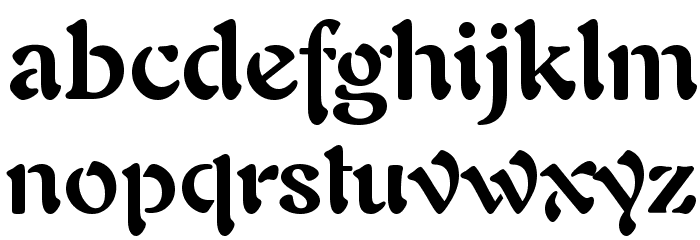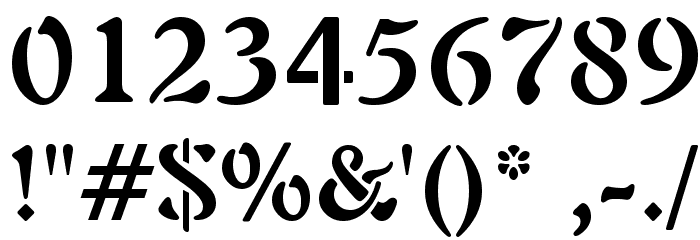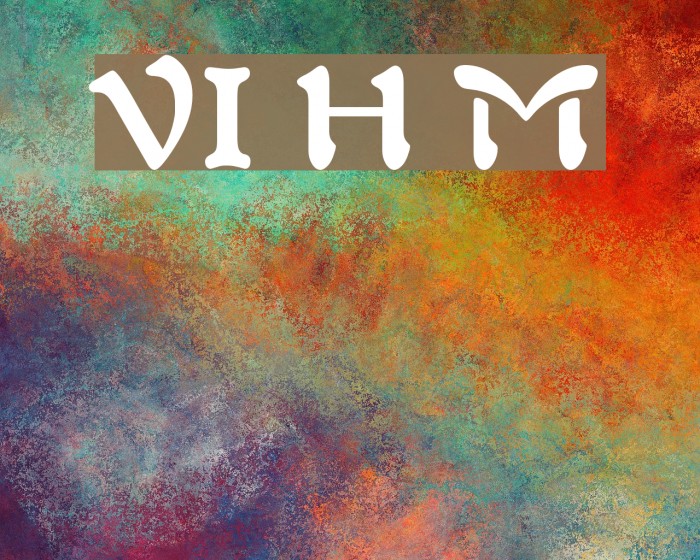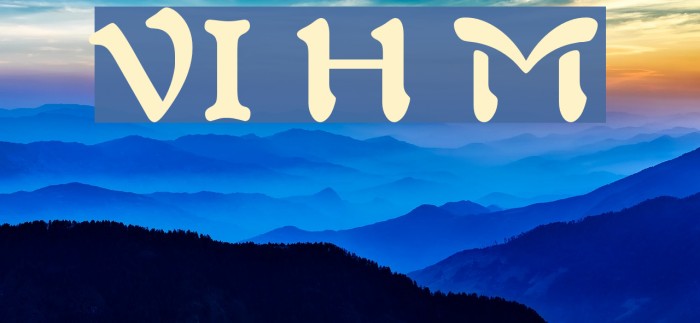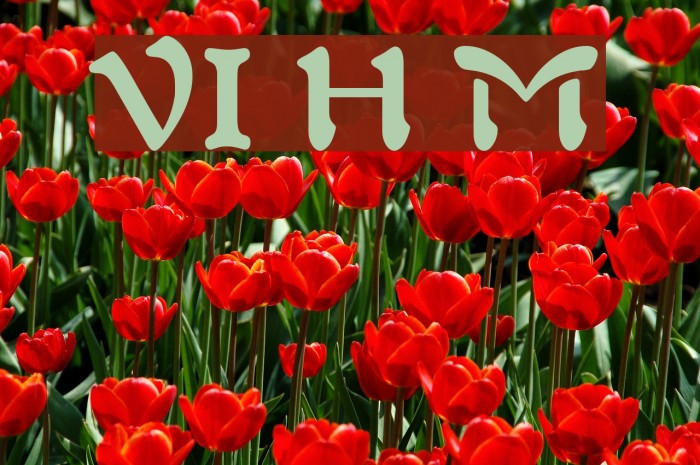
VI Hong Mai Font
This font exhibits a bold and decorative style, characterized by its intricate and artistic letterforms. The uppercase and lowercase letters feature unique curves and flourishes, giving it a distinctive and ornate appearance. The numbers and special characters maintain this decorative theme, ensuring a cohesive look across all glyphs. The font's boldness and high contrast in stroke thickness make it stand out, while its decorative elements add a touch of elegance and sophistication. This font is ideal for projects that require a strong visual impact and a sense of style.
A bold, decorative font with intricate curves and high contrast.
- Proposed Projects: Ideal for branding, headlines, posters, and invitations where a strong visual impact is desired.